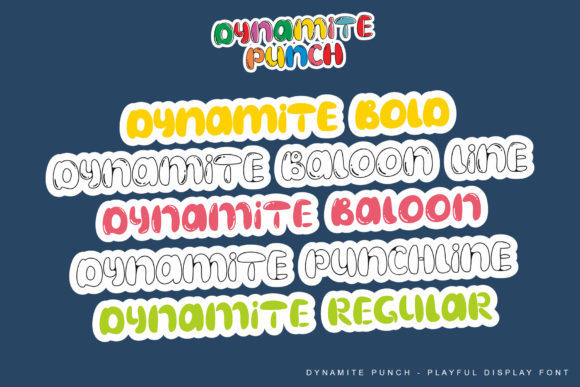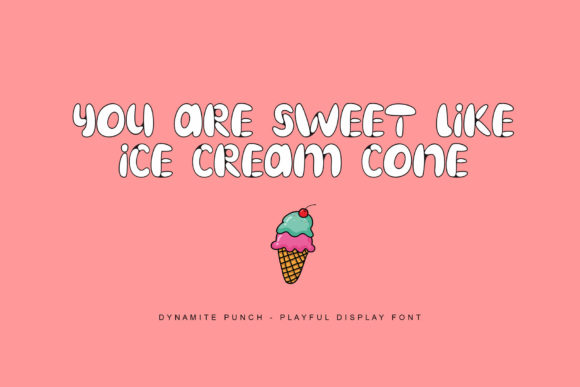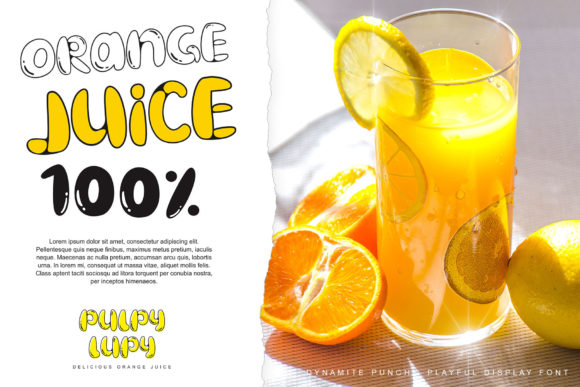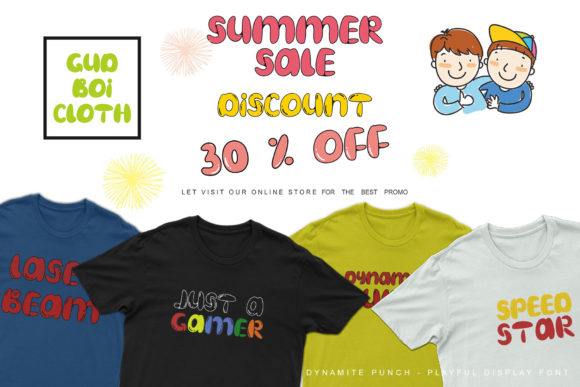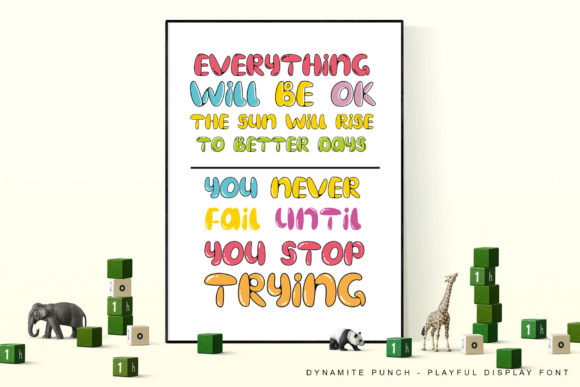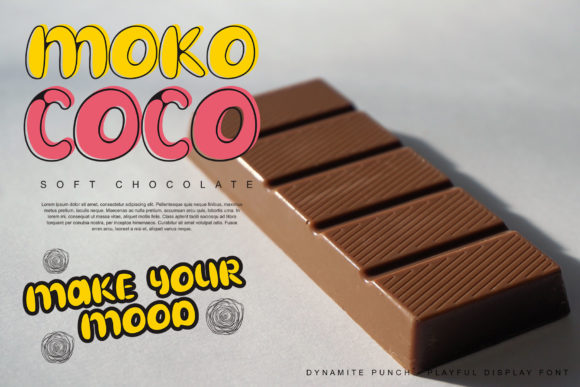
Dynamite Punch Font: The Perfect Addition to Your Creative Projects
Are you tired of using the same old fonts for your logos, branding, and DIY projects? Look no further than the Dynamite Punch font! This playful display font is designed to add a friendly and quirky touch to any project, making it stand out from the crowd. In this article, we’ll take a closer look at the Dynamite Punch font, its features, and how it can elevate your creative ideas.
What is Dynamite Punch Font?
Dynamite Punch is a clean and modern display font that exudes a friendly feel. Its unique design makes it perfect for a wide range of projects, from logos and branding to social media graphics and crafty DIY projects. The font’s playful and quirky personality is sure to capture the attention of your audience and leave a lasting impression.
Key Features of Dynamite Punch Font
- Playful and Friendly Feel: Dynamite Punch font has a unique and friendly feel that sets it apart from other fonts.
- Clean and Quirky Design: The font’s clean and quirky design makes it perfect for a wide range of projects, from logos to DIY crafts.
- Highly Versatile: Dynamite Punch font can be matched with an incredibly large set of projects, making it a great addition to your font collection.
Dynamite Punch font is a great addition to any designer’s or crafter’s toolkit. Its unique and playful design makes it perfect for a wide range of projects, including:
- Logos and Branding: Create a lasting impression with a custom logo that showcases your brand’s personality.
- Social Media Graphics: Add a touch of personality to your social media graphics and stand out from the crowd.
- DIY Crafts: Add a professional touch to your DIY crafts, such as handmade cards, gift tags, and more.
Why Choose Dynamite Punch Font?
With so many fonts available, why choose Dynamite Punch? Here are just a few reasons:
- Unique Design: Dynamite Punch font has a unique and playful design that sets it apart from other fonts.
- Easily Readable: The font is clean and easy to read, making it perfect for a wide range of projects.
- Highly Versatile: Dynamite Punch font can be matched with an incredibly large set of projects, making it a great addition to your font collection.
How to Use Dynamite Punch Font
In conclusion, Dynamite Punch font is a playful and friendly display font that’s perfect for a wide range of projects. Its unique design, clean and quirky feel, and high versatility make it a great addition to any designer’s or crafter’s toolkit. Whether you’re working on a logo, social media graphic, or DIY craft, Dynamite Punch font is sure to elevate your creative ideas and make them stand out from the crowd.